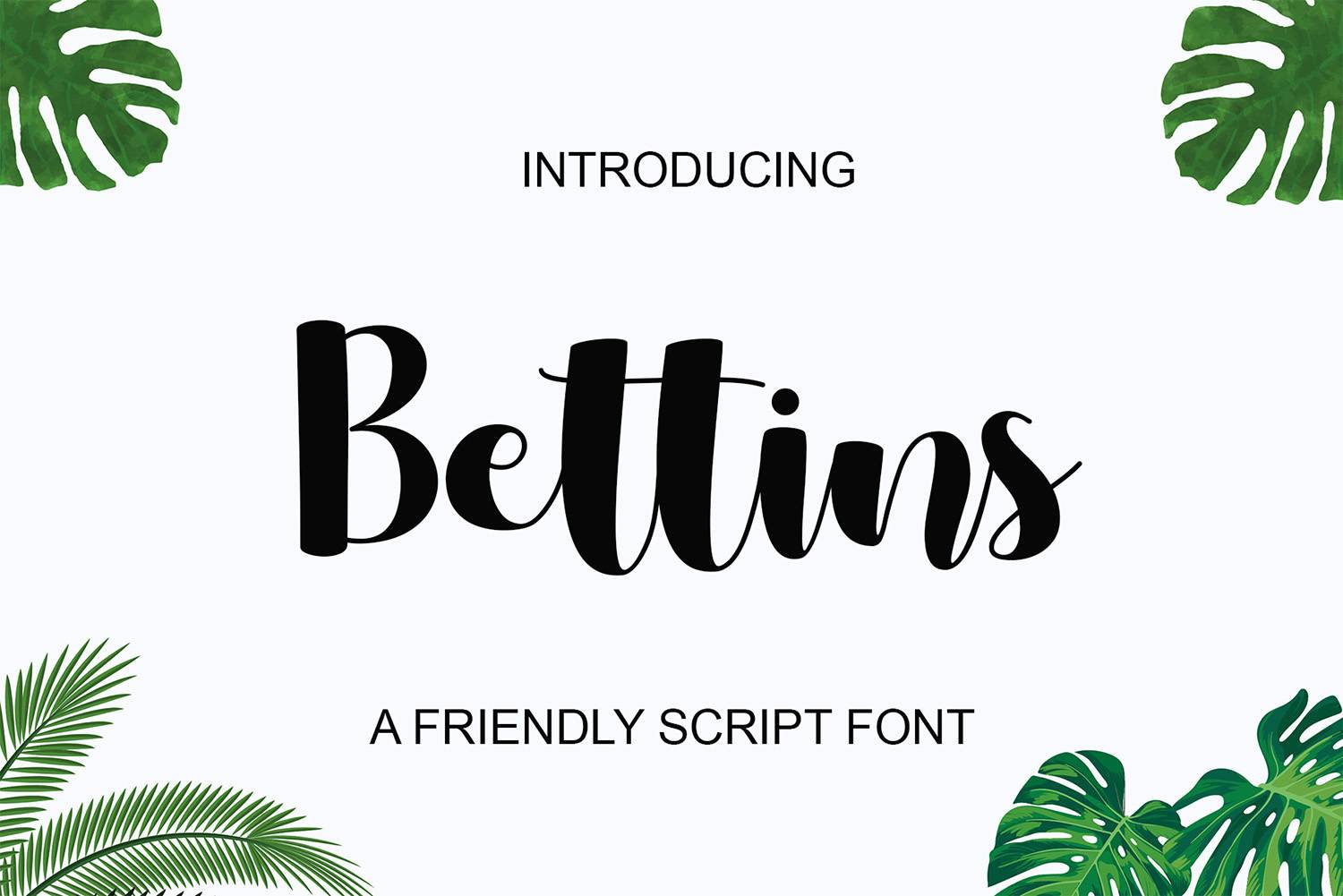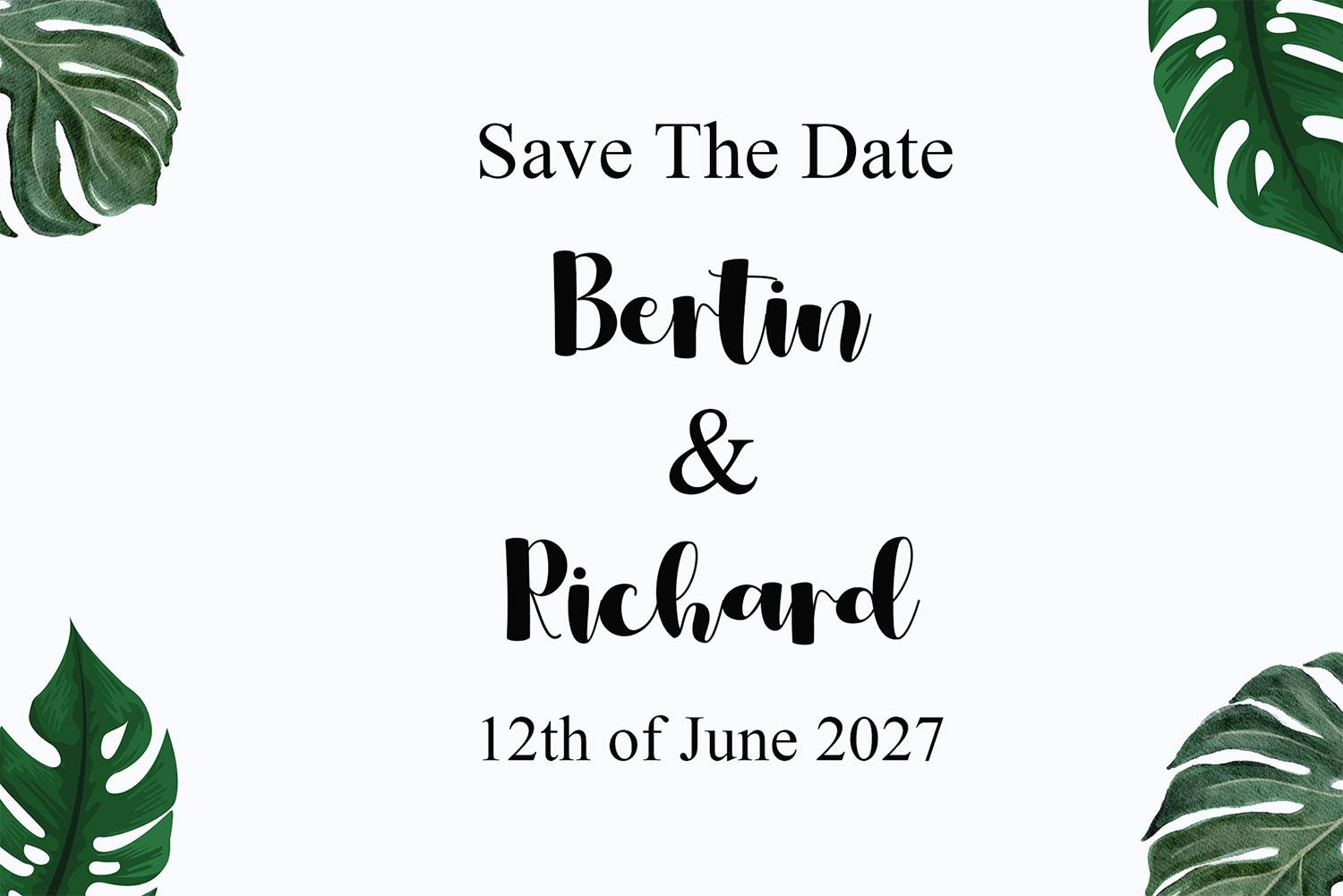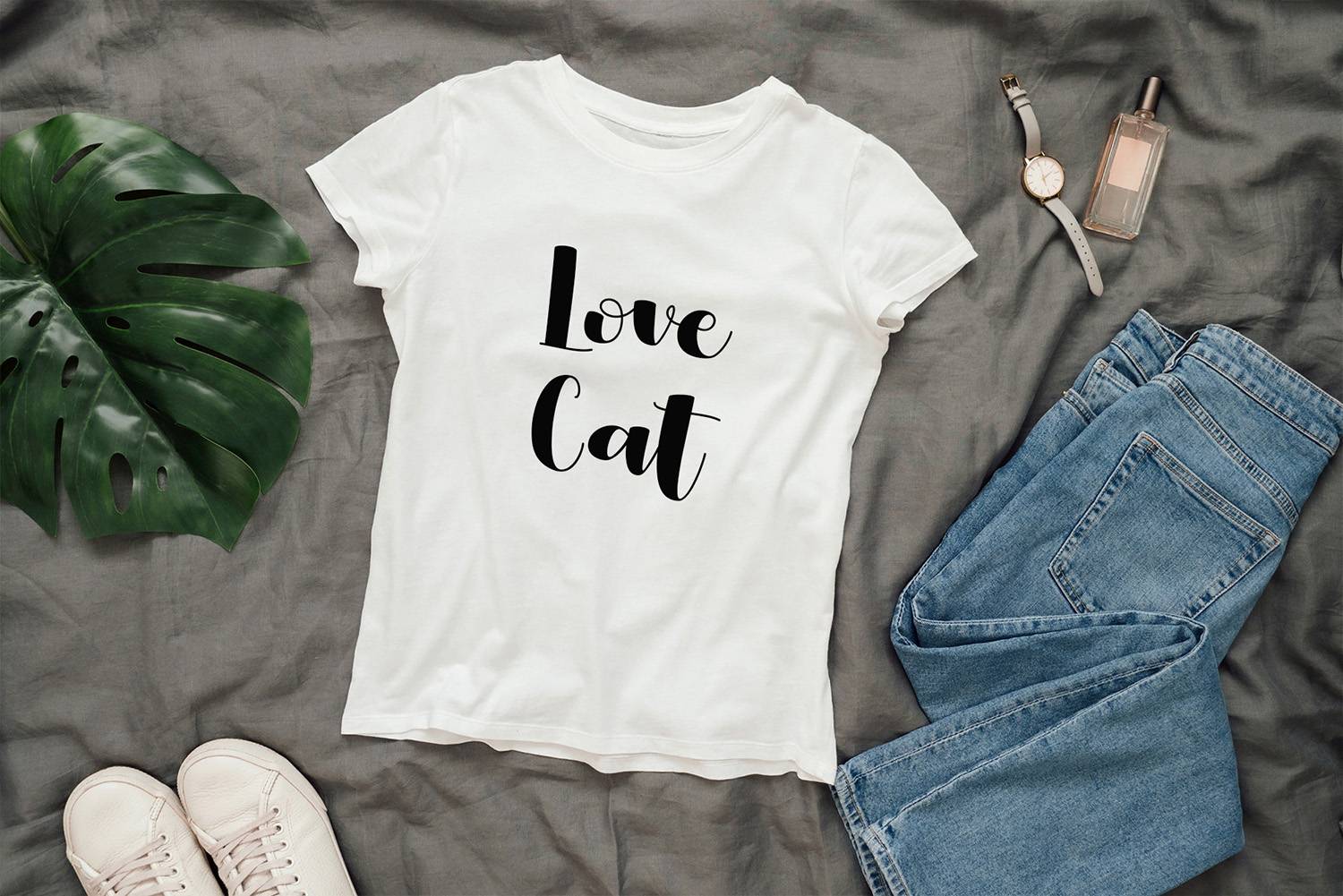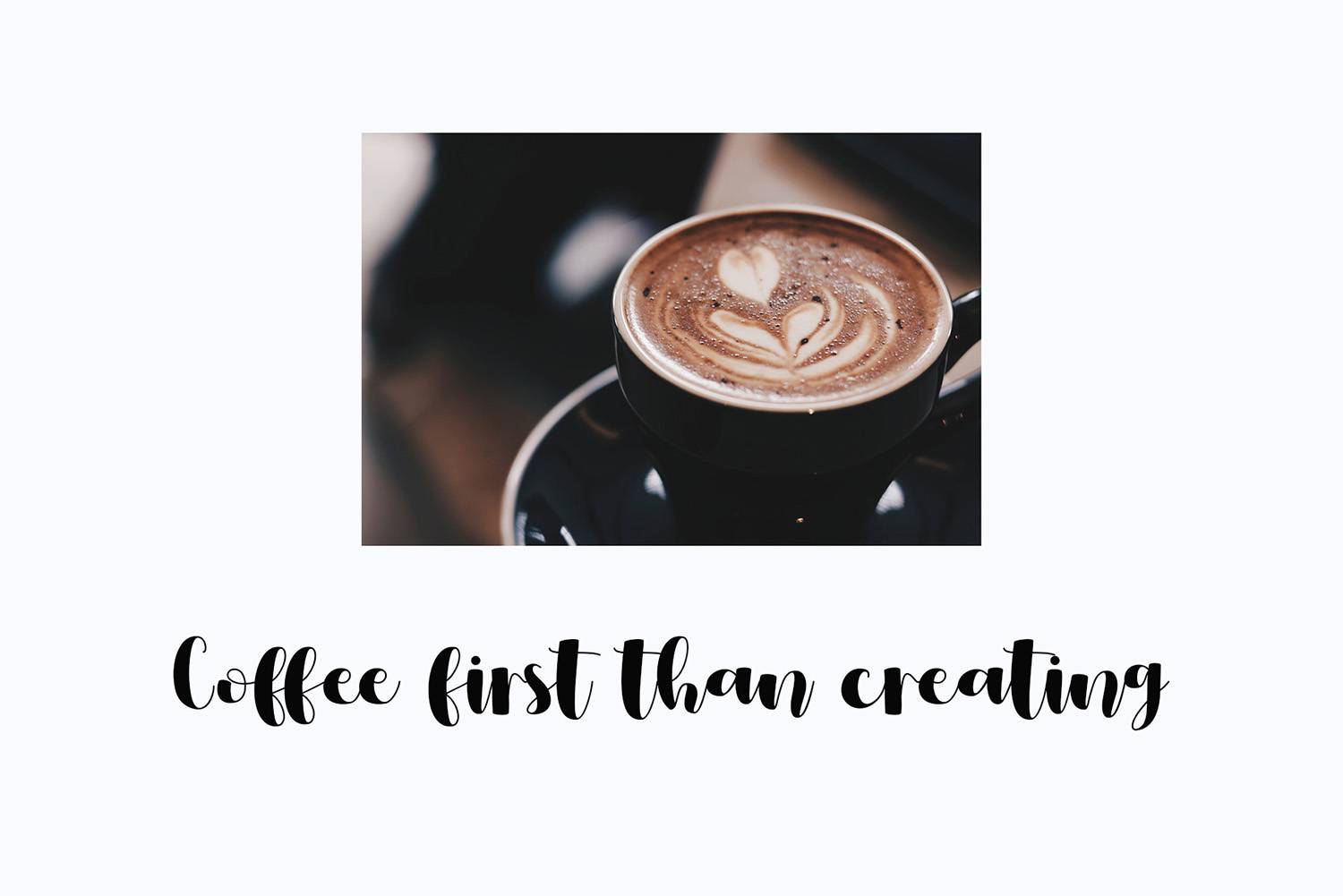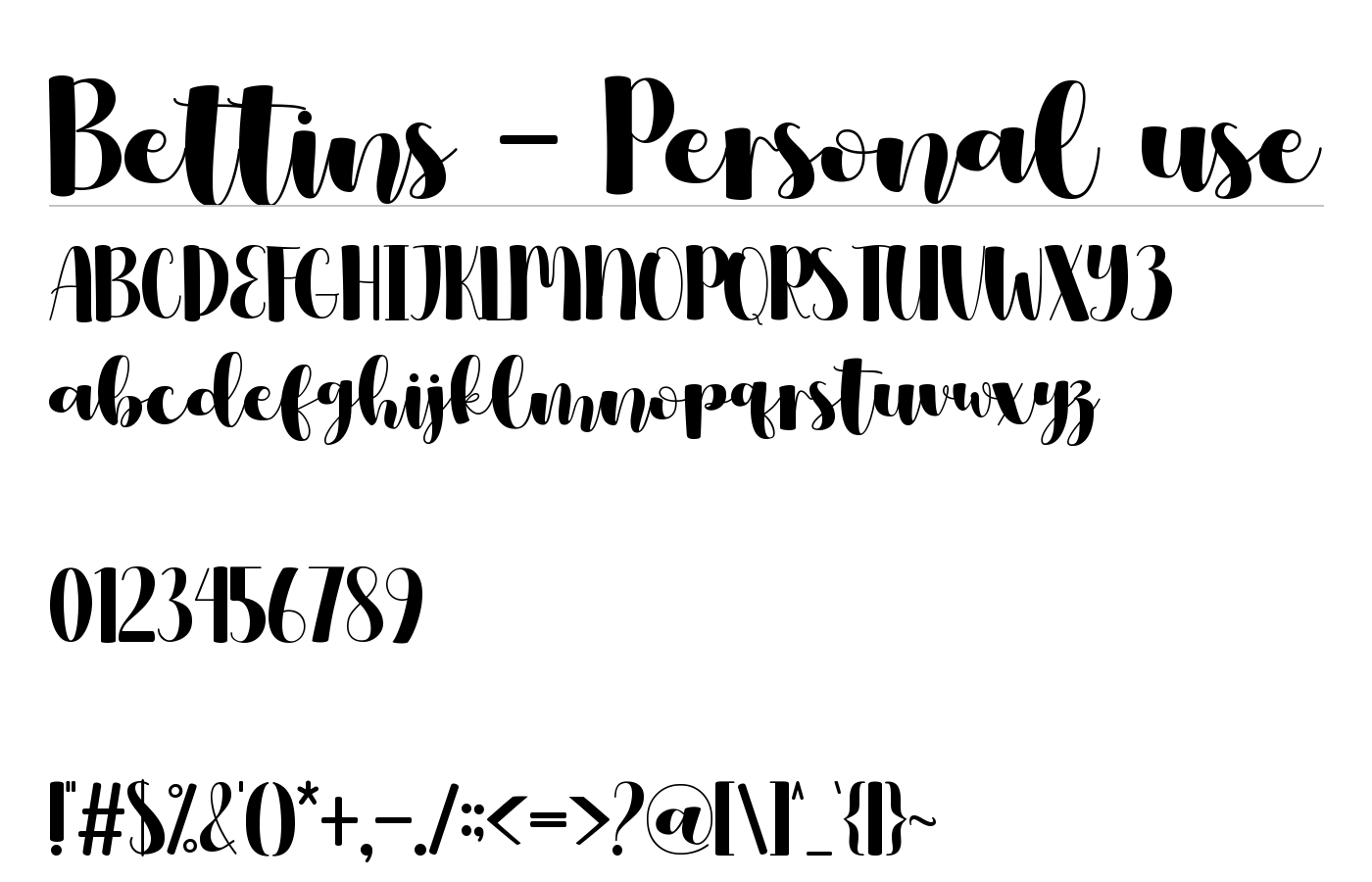
Bettins is a charming and playful script font with bold, rounded strokes that give it a friendly and approachable feel. Its high contrast between thick and thin lines, along with elegant swashes and curvy details, make it perfect for creative branding, invitations, and decorative headlines. This font works well when you want to convey a sense of warmth and personality in a stylish, eye-catching way.